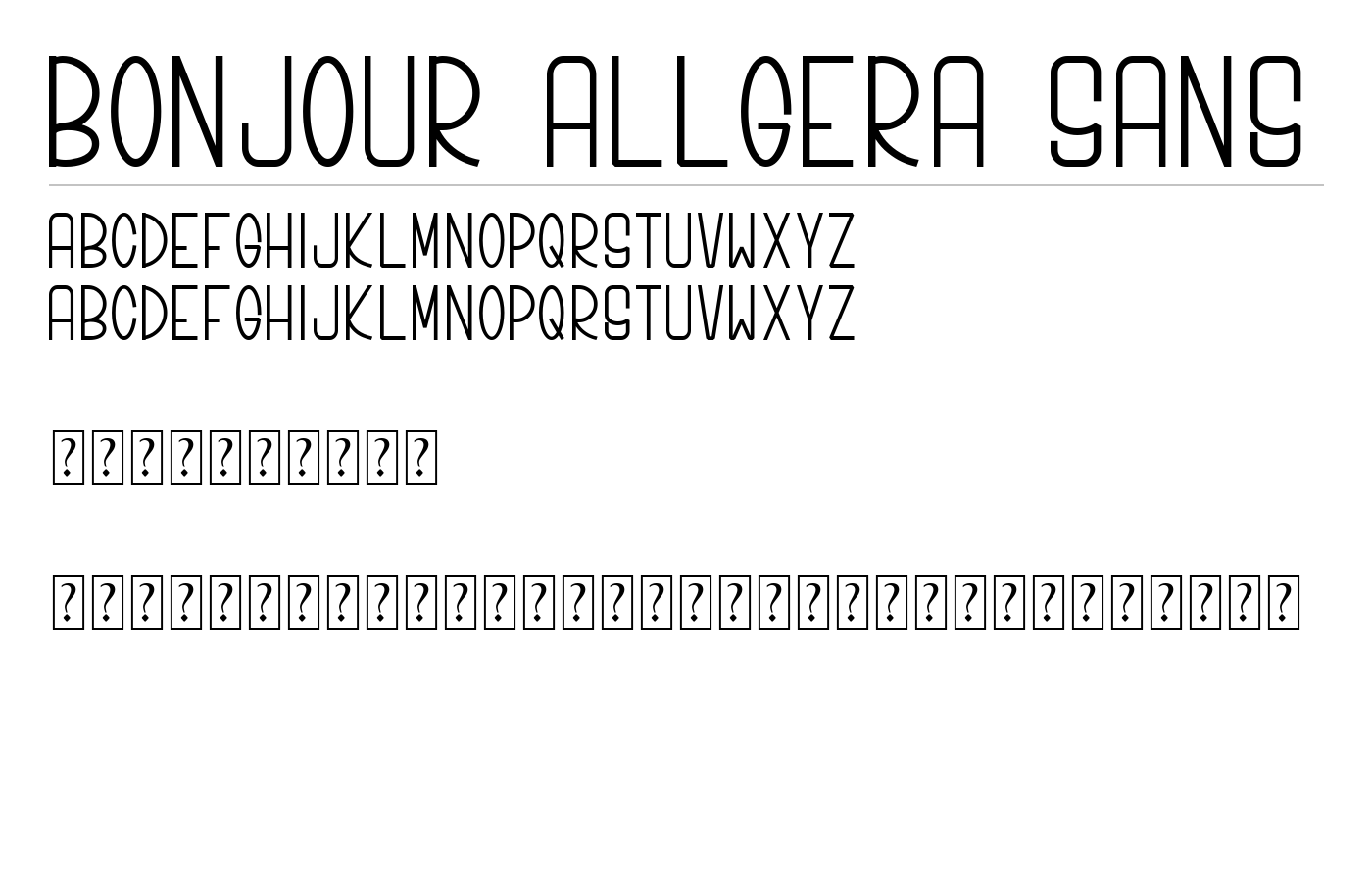
Bonjour Allgera Sans is a tall, narrow sans-serif font with a playful and modern vibe. Its thin, consistent strokes and unique letterforms give it a quirky yet elegant feel, making it ideal for eye-catching headlines, creative branding, and stylish editorial work. This font works best where a distinctive, contemporary look is desired without sacrificing readability.
Bonjour Allgera Sans Font
About Bonjour Allgera Sans Font
| Font family | Bonjour Allgera Sans Font |
| Designer | E. Nurcahyo |